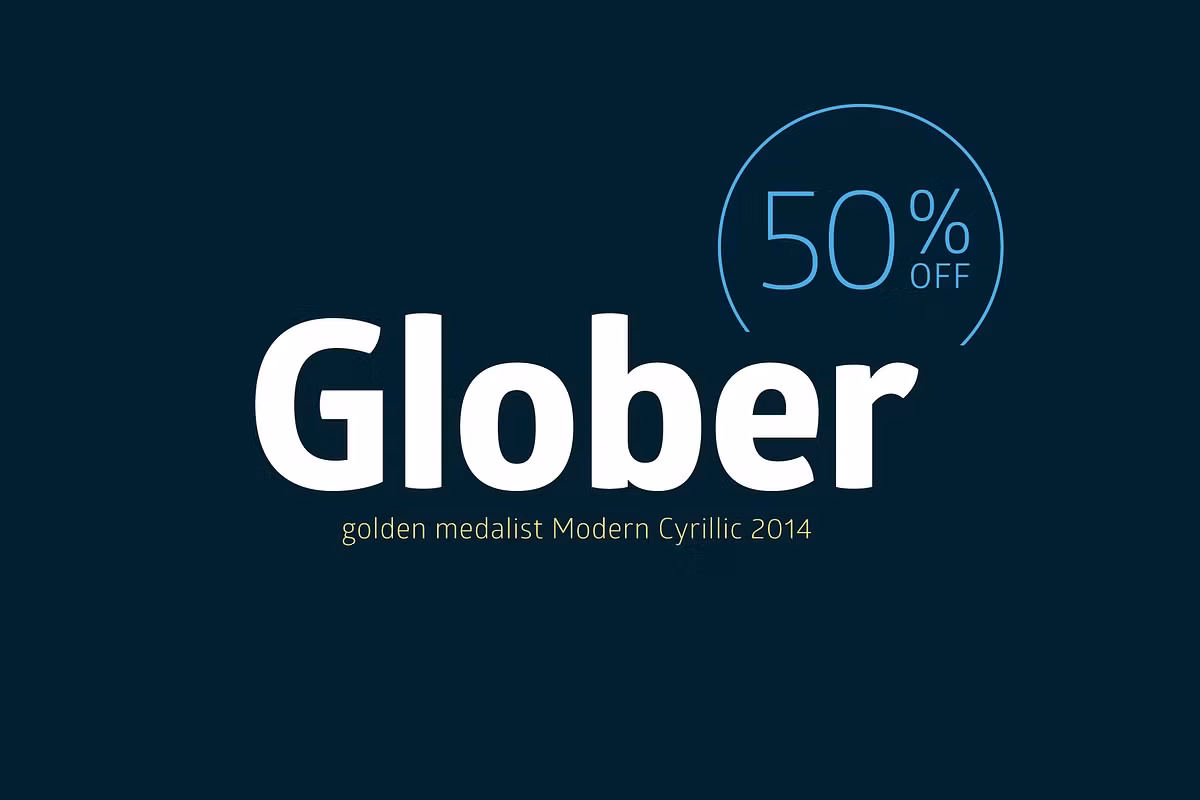
Glober Font Family Free Download is a sleek and modern sans-serif typeface family, designed to offer versatility and clarity in both print and digital projects. Featuring a range of weights and styles, from light to bold, Glober is perfect for a wide variety of applications including branding, websites, editorial designs, corporate materials, and more.
The clean and geometric design of Glober makes it an ideal choice for projects that require a modern, professional appearance. Whether you're working on a website, logo, or marketing materials, Glober provides excellent readability and visual appeal.